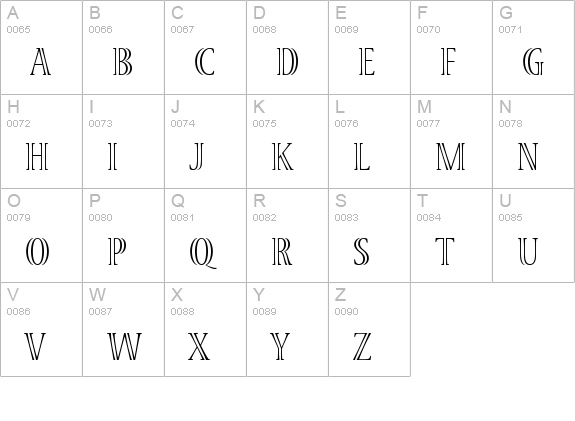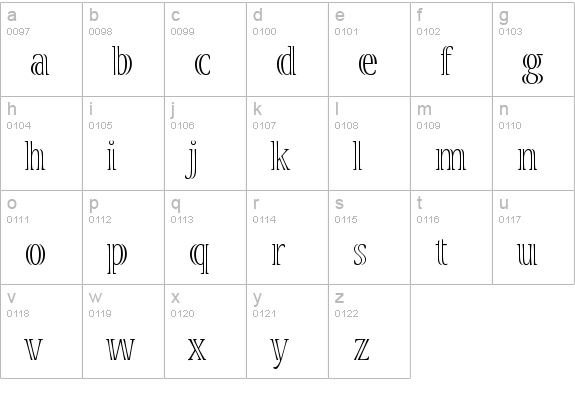
Viva Std Light Condensed Font Details
Viva Std Light Condensed is a refined, elegant, condensed-width variant in the Viva typeface family \xE2\x80\x94 well suited to elegant body text, refined sub-headings, and luxury branding.
Viva Std Light Condensed font is a stunning display typeface that exudes elegance and sophistication. Its slim and condensed letterforms are meticulously crafted, making it perfect for creating eye-catching headlines, titles, and logos. This font possesses a unique charm, effortlessly blending modernity with a touch of classic refinement. Its clean and sleek design captures attention and adds a touch of professionalism to any project. Whether used for print or digital media, Viva Std Light Condensed font is sure to make a lasting impression. What makes this font even more appealing is that it is free to download at FontsMarket.com. This means that anyone can access this remarkable typeface without any cost. It is a great opportunity for designers, creatives, and enthusiasts to enhance their projects with a high-quality font that won't break the bank. With its generous x-height and excellent legibility, Viva Std Light Condensed font is versatile and can be used in a wide range of applications. From fashion magazines to elegant invitations, from branding projects to websites, this font effortlessly adapts to various design needs. Whether you are a professional graphic designer or a hobbyist, Viva Std Light Condensed font offers a world of possibilities. Its sleek and modern aesthetic, combined with its easy accessibility, make it a must-have in any font collection. Discover the beauty of Viva Std Light Condensed font today. Visit FontsMarket.com to download this stunning typeface for free and elevate your designs to new heights.